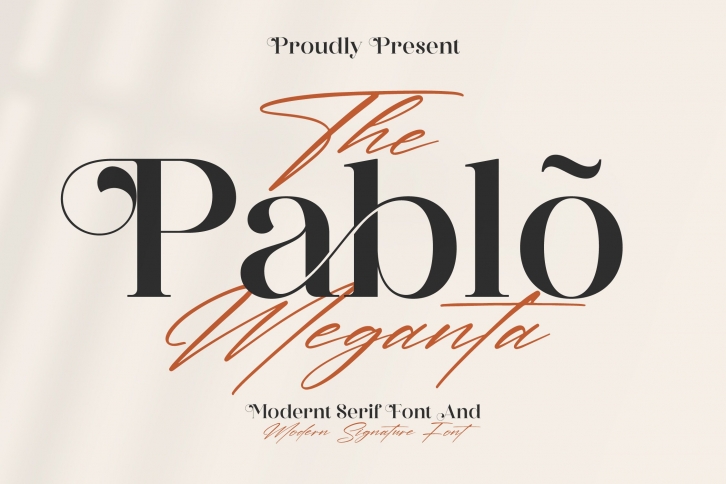
The Pablo Meganta consists of two fonts designed to complement each other perfectly. Together or apart, these fonts are ideal for adding a chic and cheery touch to your crafts. This font is PUA encoded which means you can access all glyphs and swashes with ease!